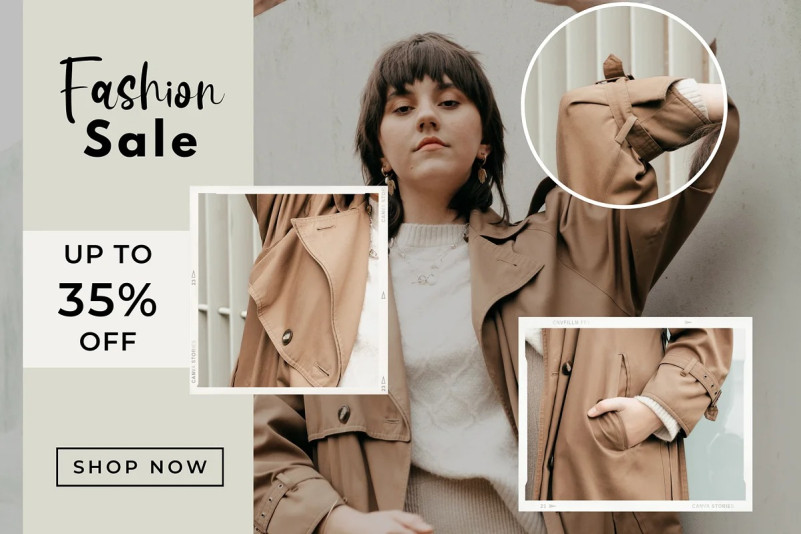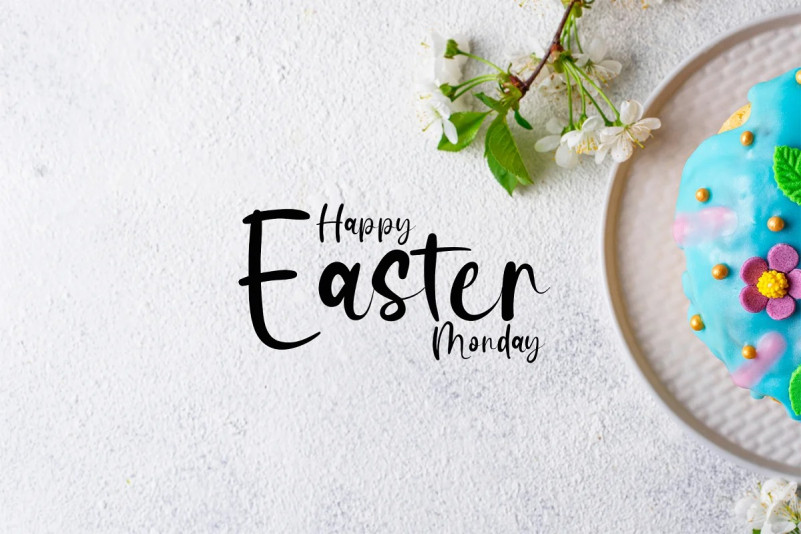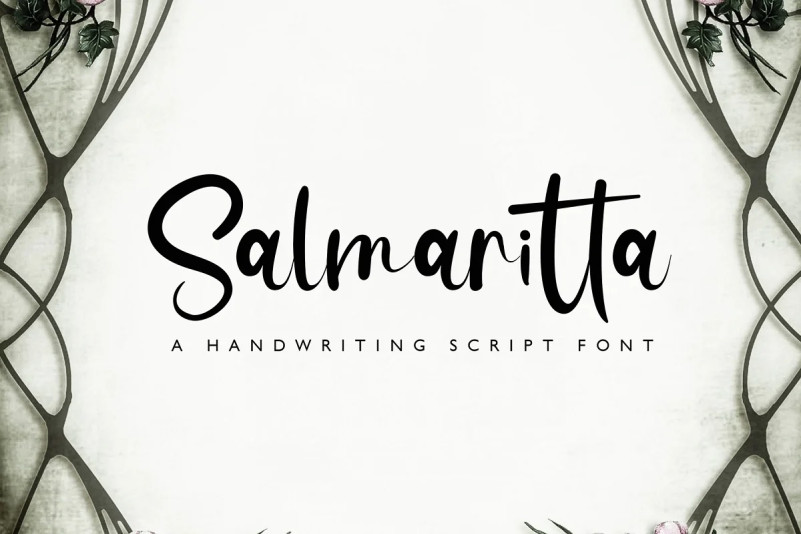
Salmaritta Font
Salmaritta Script Font is a classy script font that looks very luxury, modern and elegant.
Salmaritta is perfect for branding projects, logo, wedding designs, social media posts, advertisements, product packaging, product designs, label, photography, watermark, invitation, stationery and any projects that need handwriting taste.